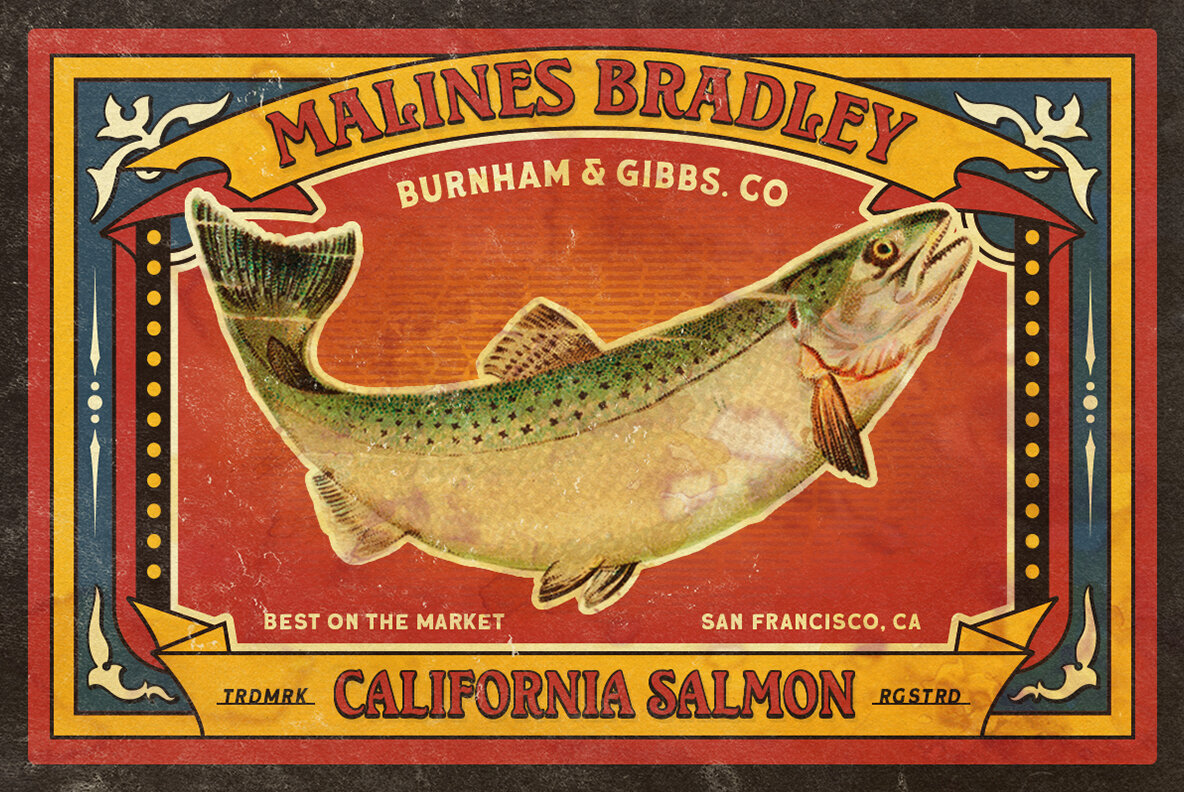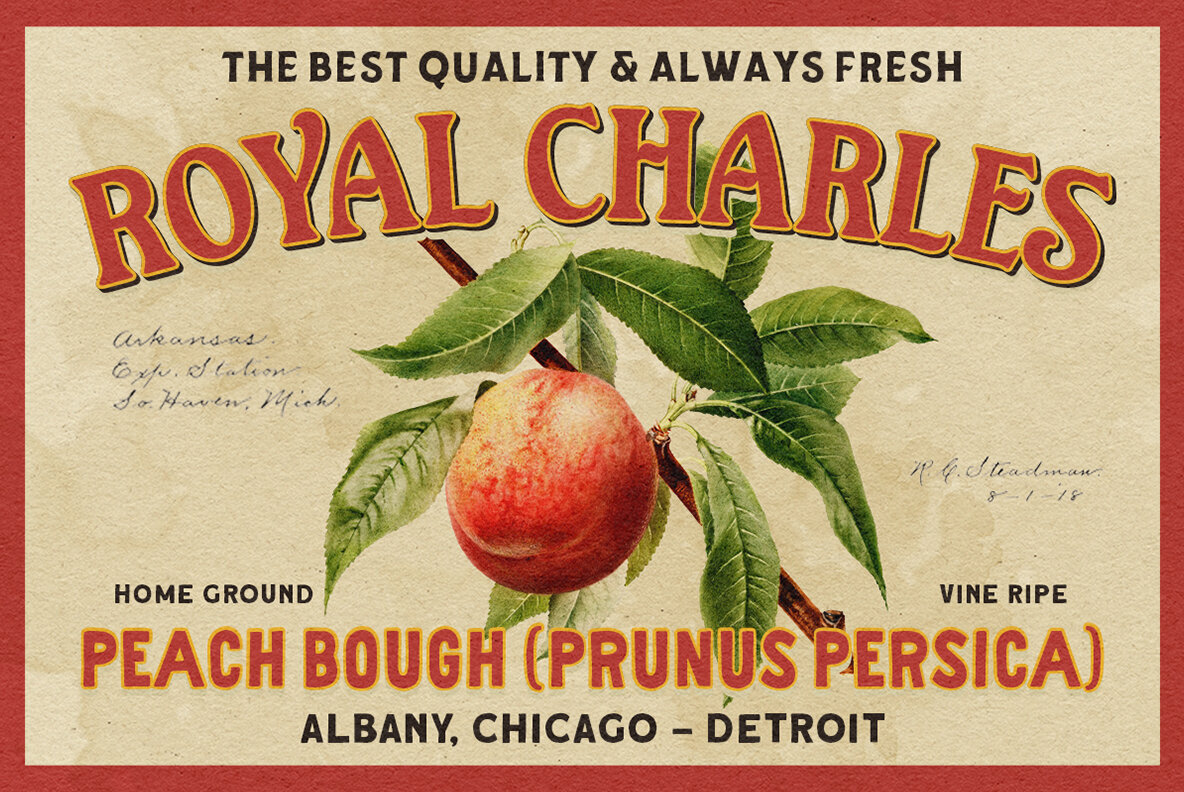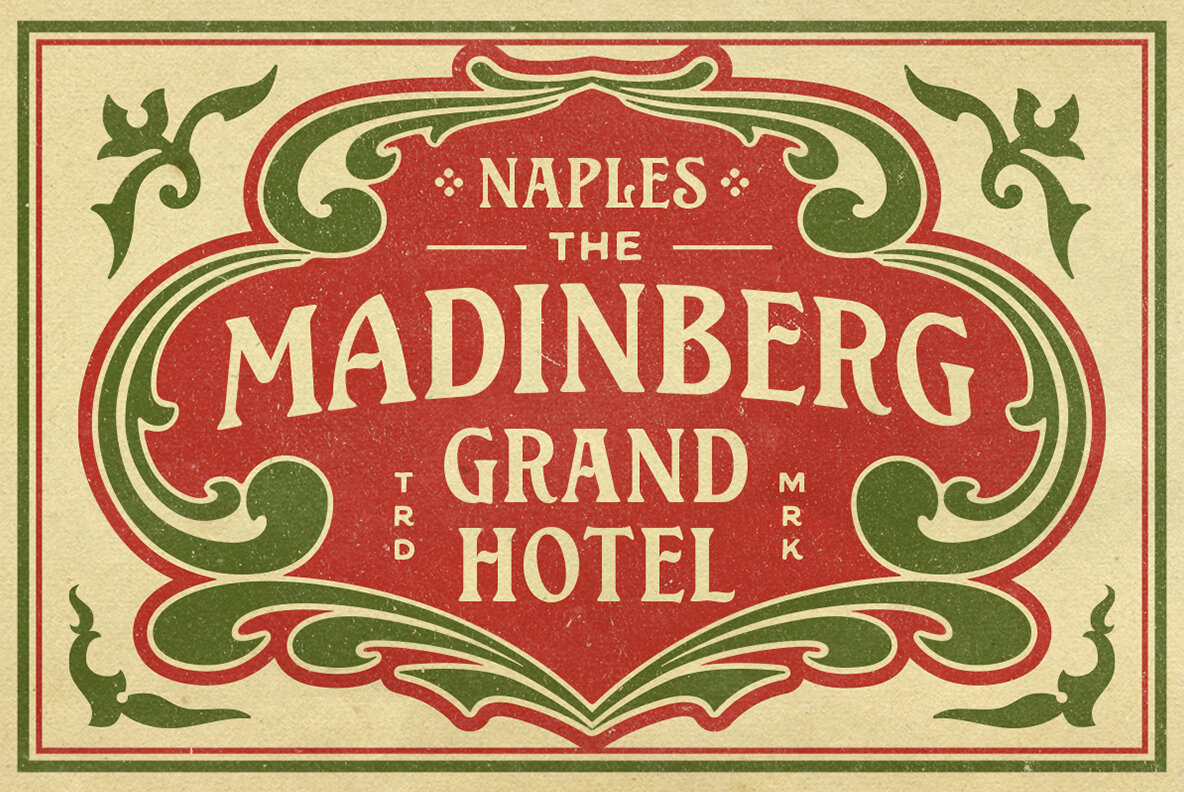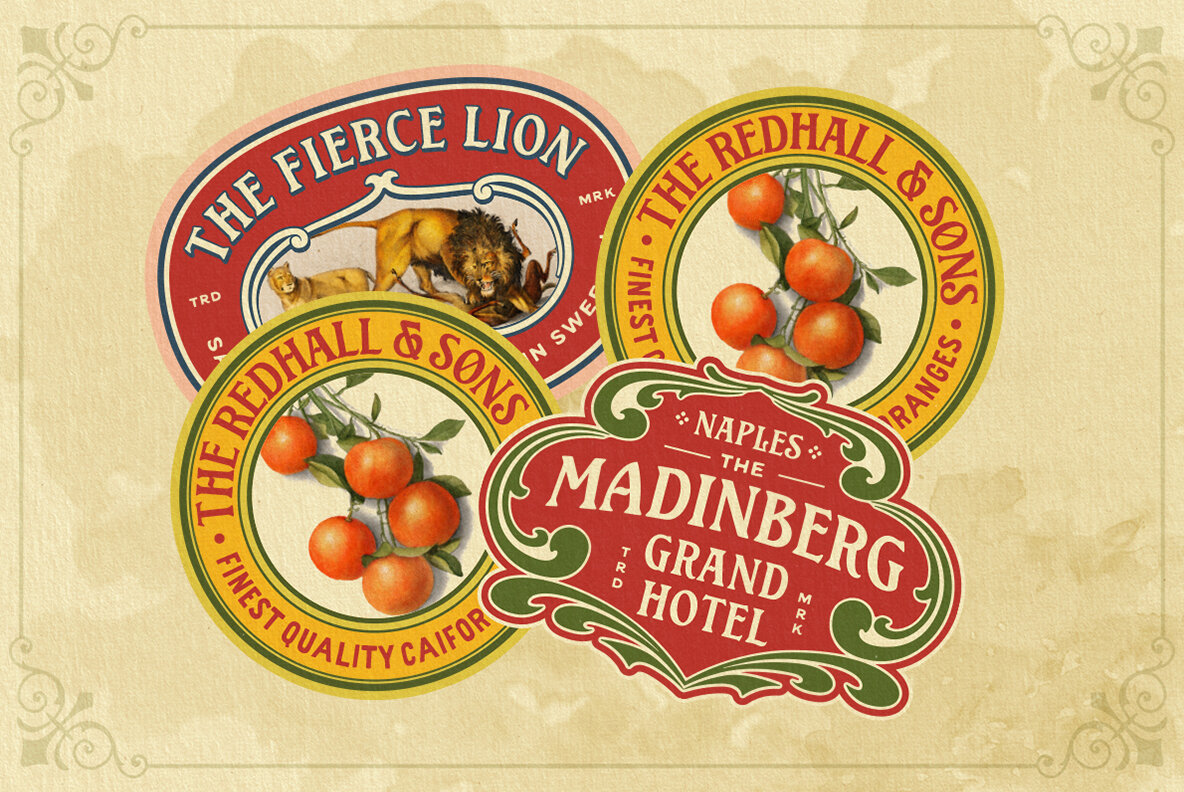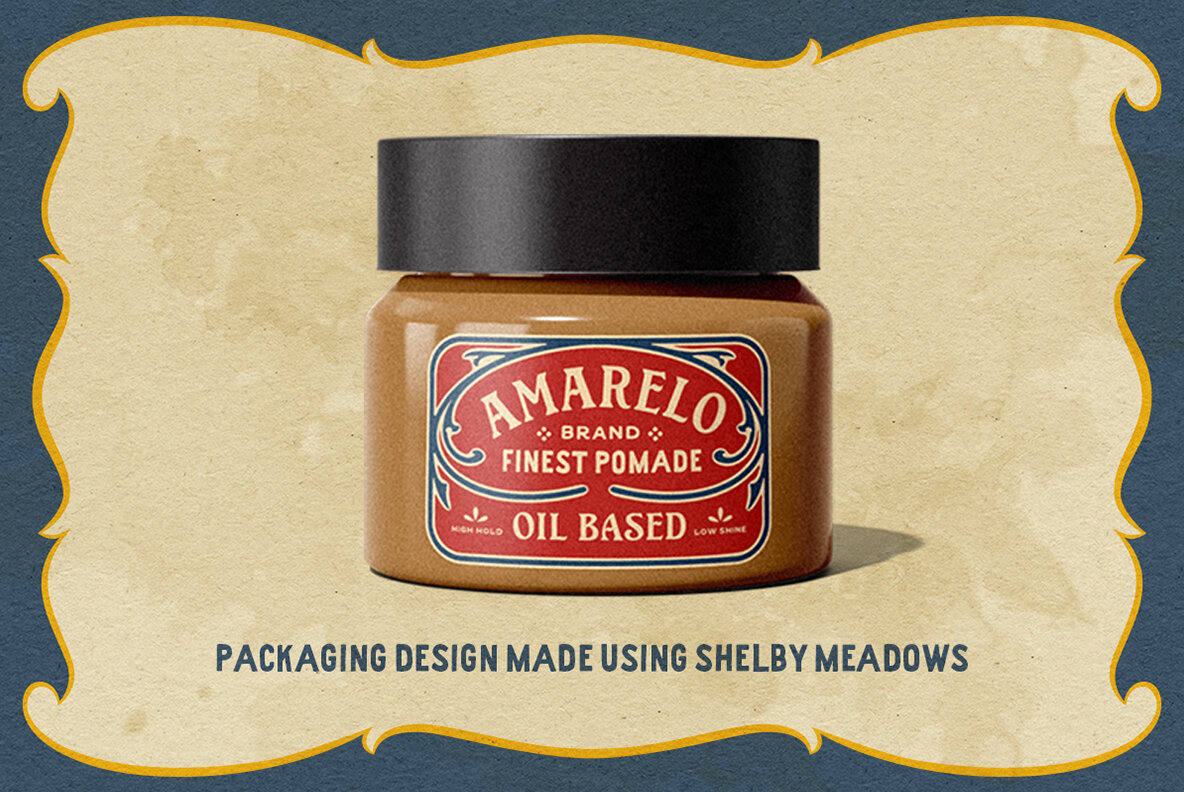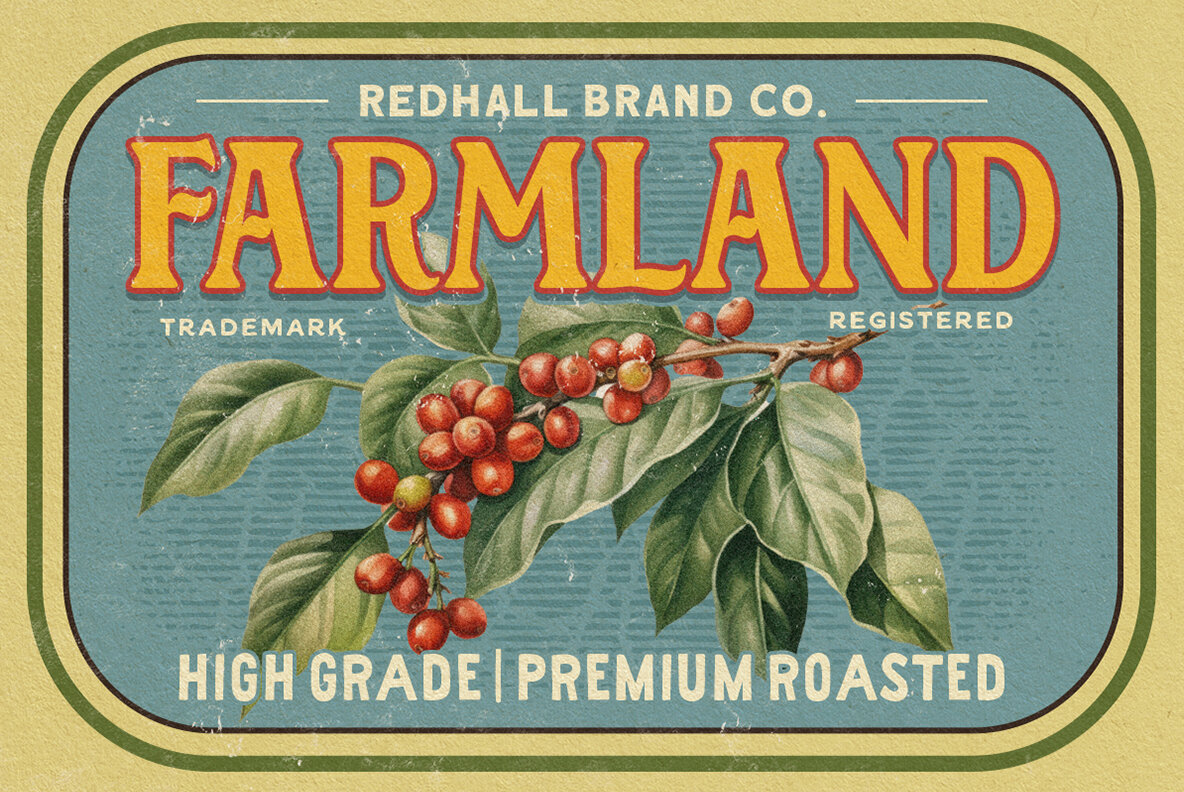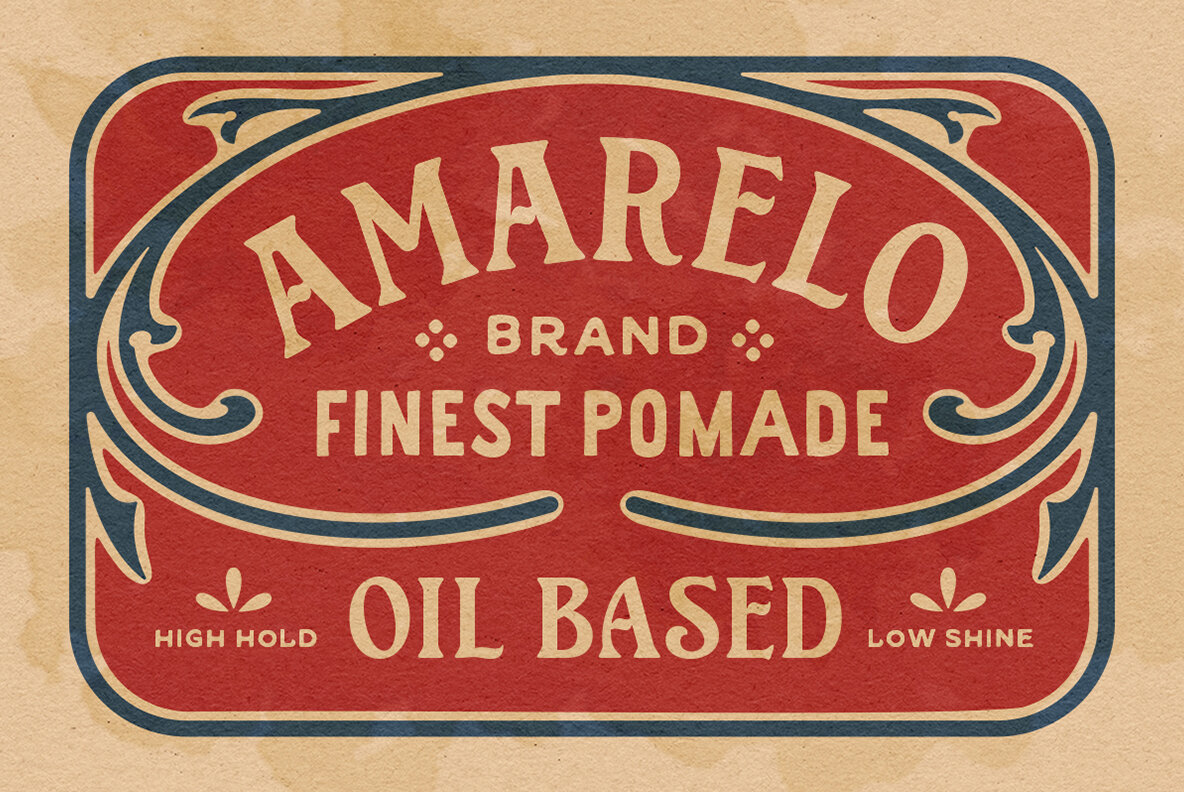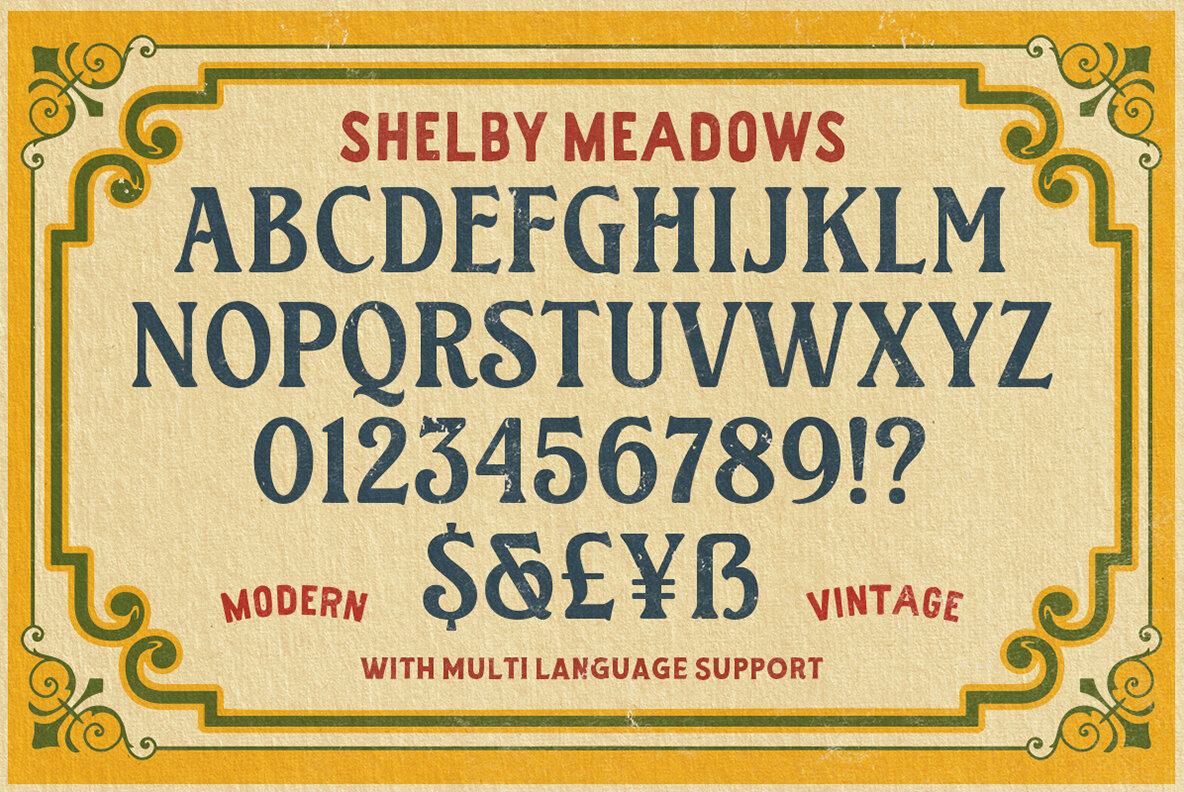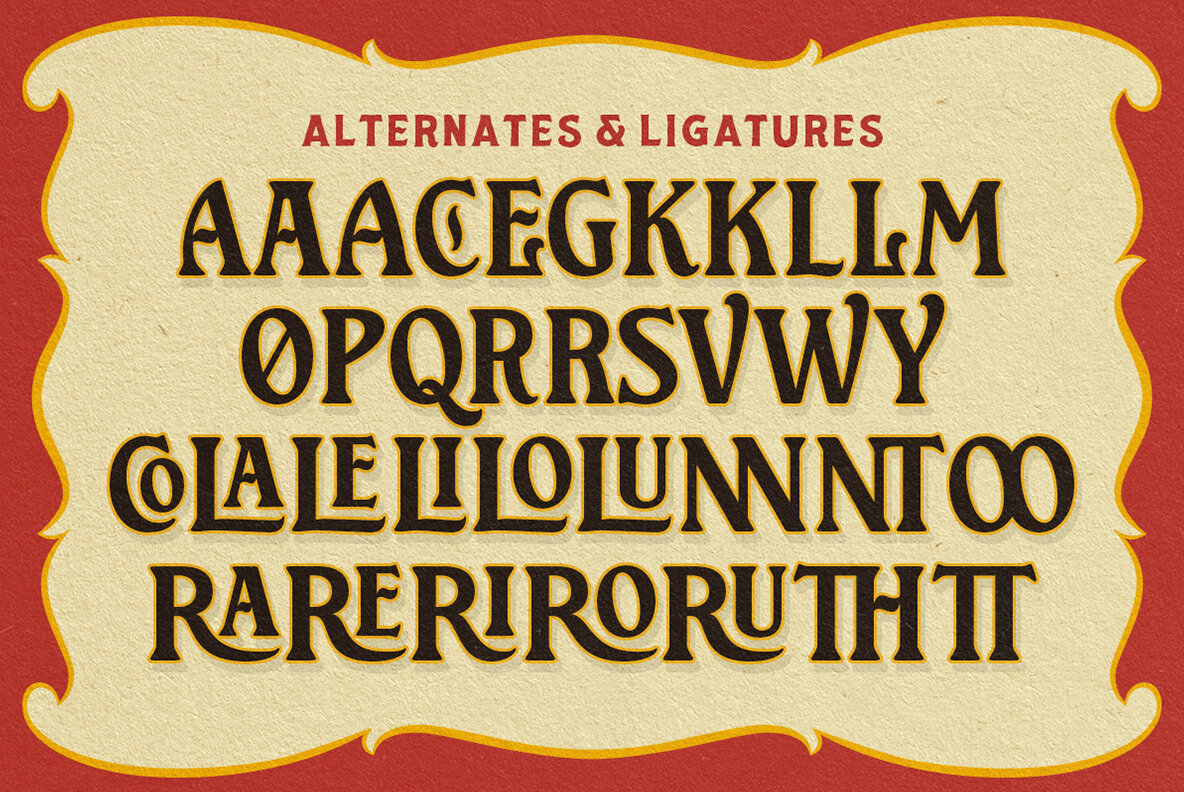
Shelby Meadows Font
Shelby Meadows
Shelby Meadows is a modern serif font that draws inspiration from vintage typography, delivering a unique and powerful aesthetic. This typeface is meticulously crafted to evoke a nostalgic feel while maintaining a contemporary elegance, making it an excellent choice for designers seeking a vintage-inspired look.
Ideal for a variety of design projects, Shelby Meadows complements branding materials, logos, posters, t-shirts, and print designs beautifully. With its versatility, it enhances the visual appeal of quotes and other graphic elements, providing them with a timeless charm. Whether you are working on a retro-themed project or aiming for a refined, classic style, Shelby Meadows offers a perfect blend of vintage allure and modern sophistication.